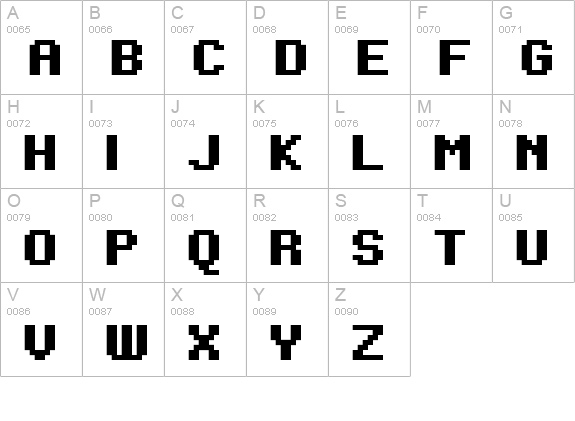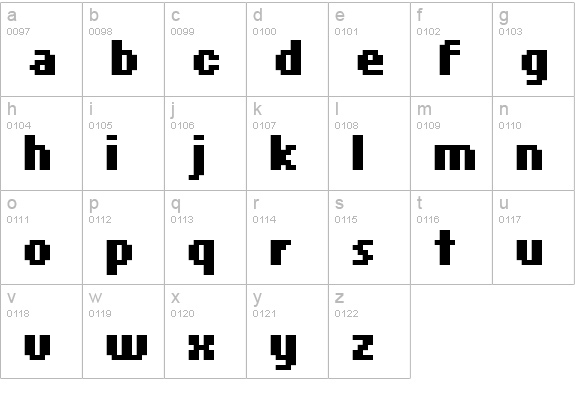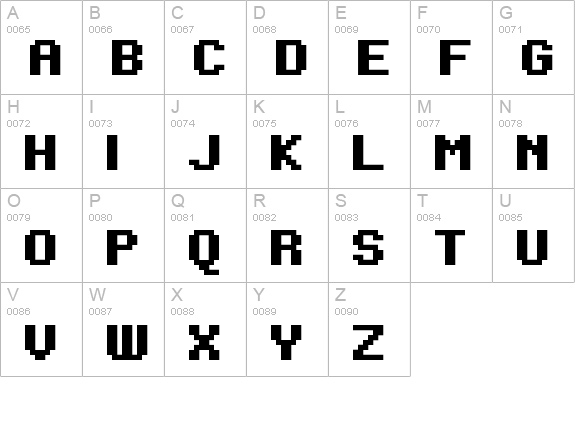
FFF Urban Bold Extended is a strong, high-contrast, extended-width variant in the FFF typeface family \xE2\x80\x94 well suited to headlines, attention-grabbing titles, and strong calls-to-action.
Introducing the FFF Urban Bold Extended font – a striking display typeface that exudes modernity and urban flair. This versatile font is perfect for making a bold statement in your designs, whether for posters, logos, headlines, or any other creative project that demands attention. Featuring strong, geometric letterforms with an extended width, FFF Urban Bold Extended commands presence and adds a touch of edginess to any design. Its bold and impactful appearance makes it ideal for conveying a sense of strength and power, while its contemporary style ensures a fresh and modern look. And the best part? FFF Urban Bold Extended is available for free download at FontsMarket.com. That's right, you can easily access this eye-catching font and elevate your projects without breaking the bank. So why wait? Download FFF Urban Bold Extended today and unleash your creativity with this powerful and stylish typeface.